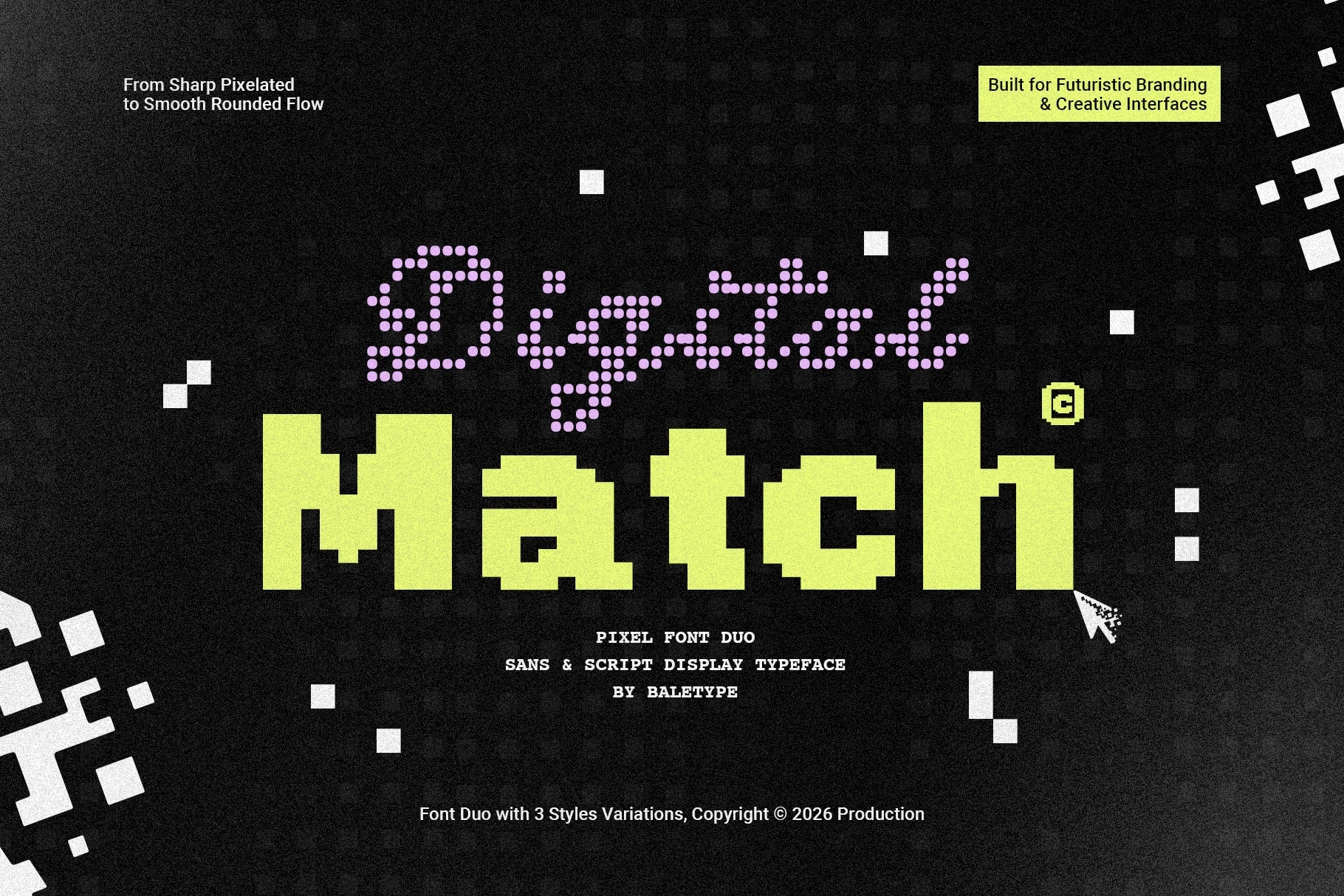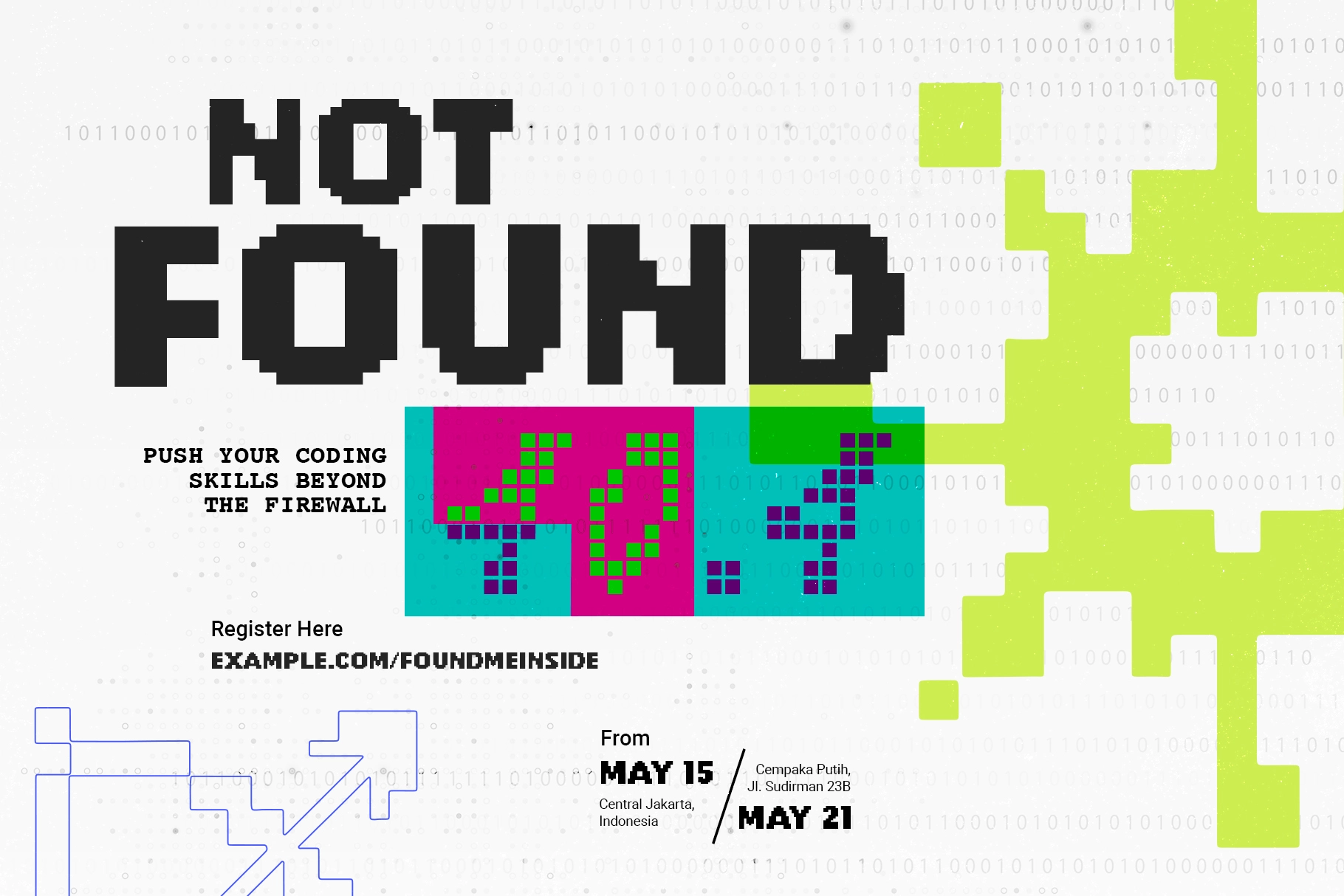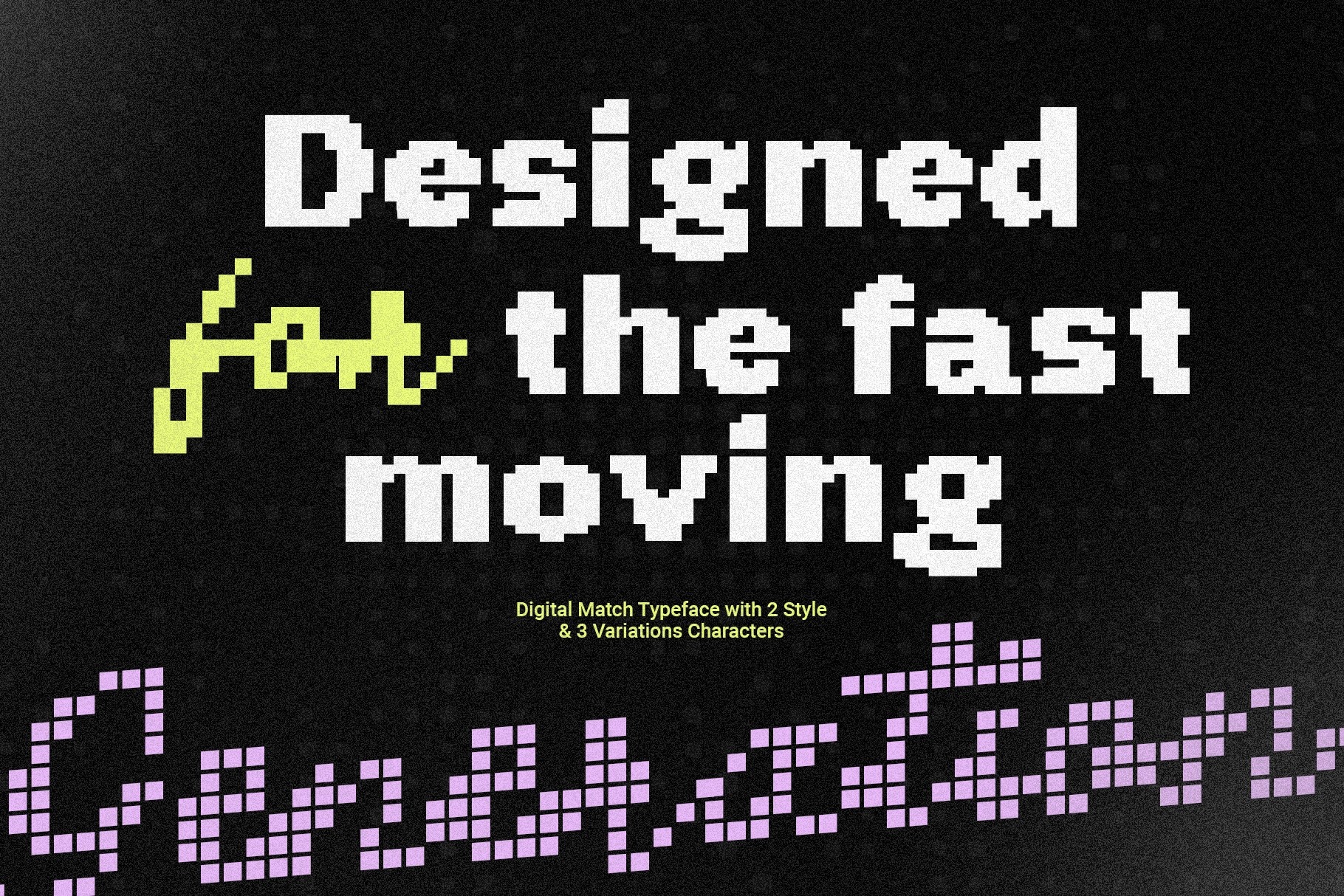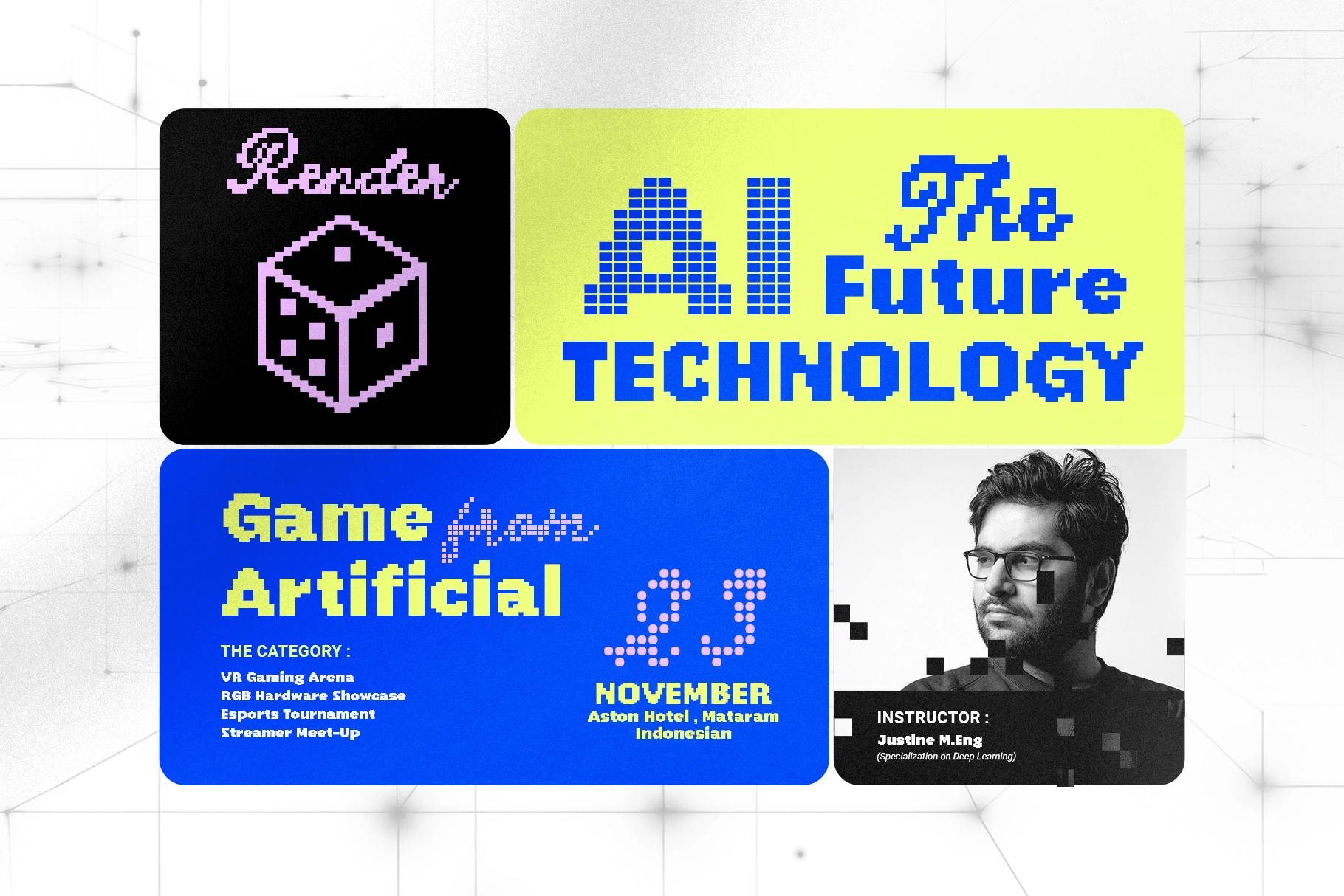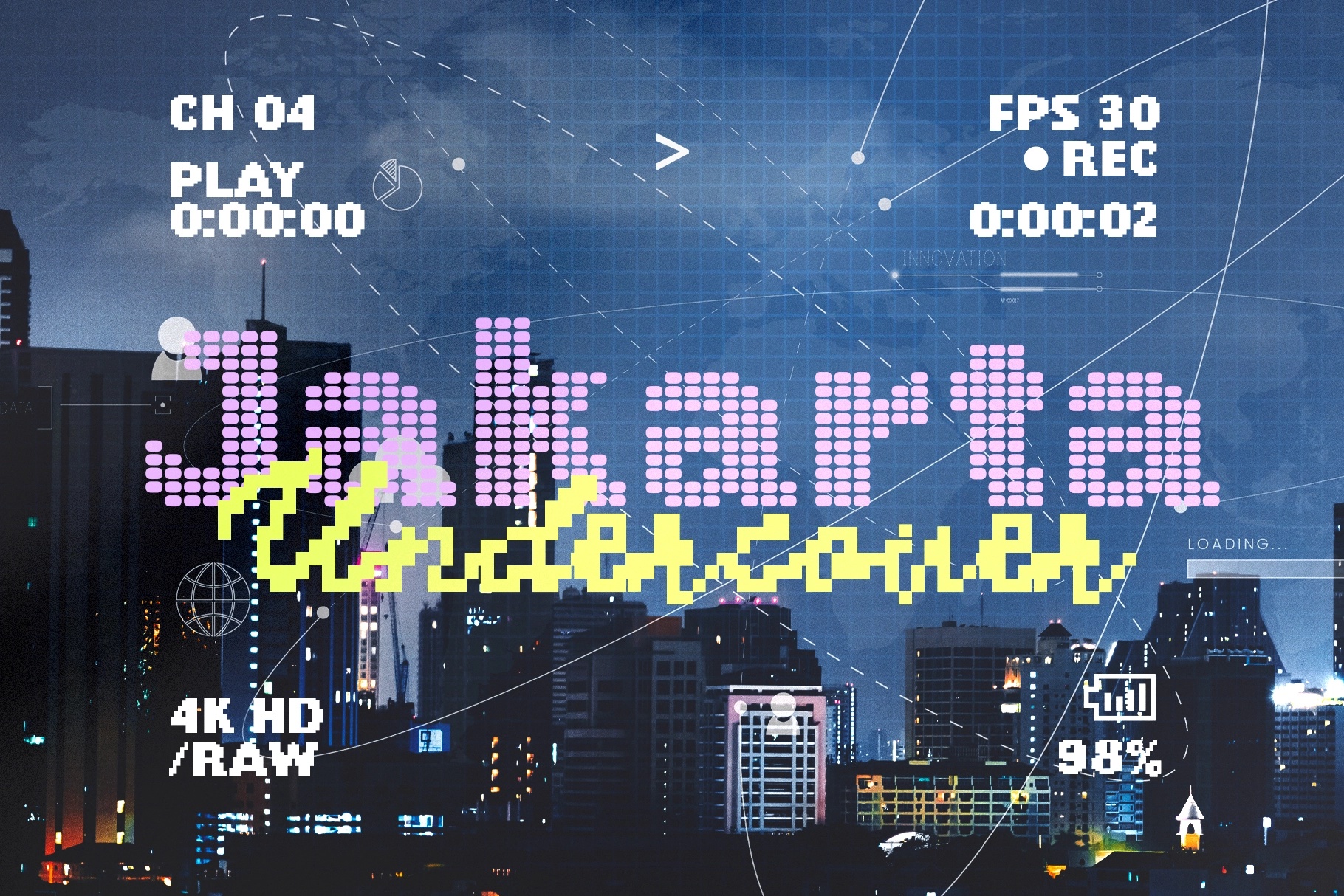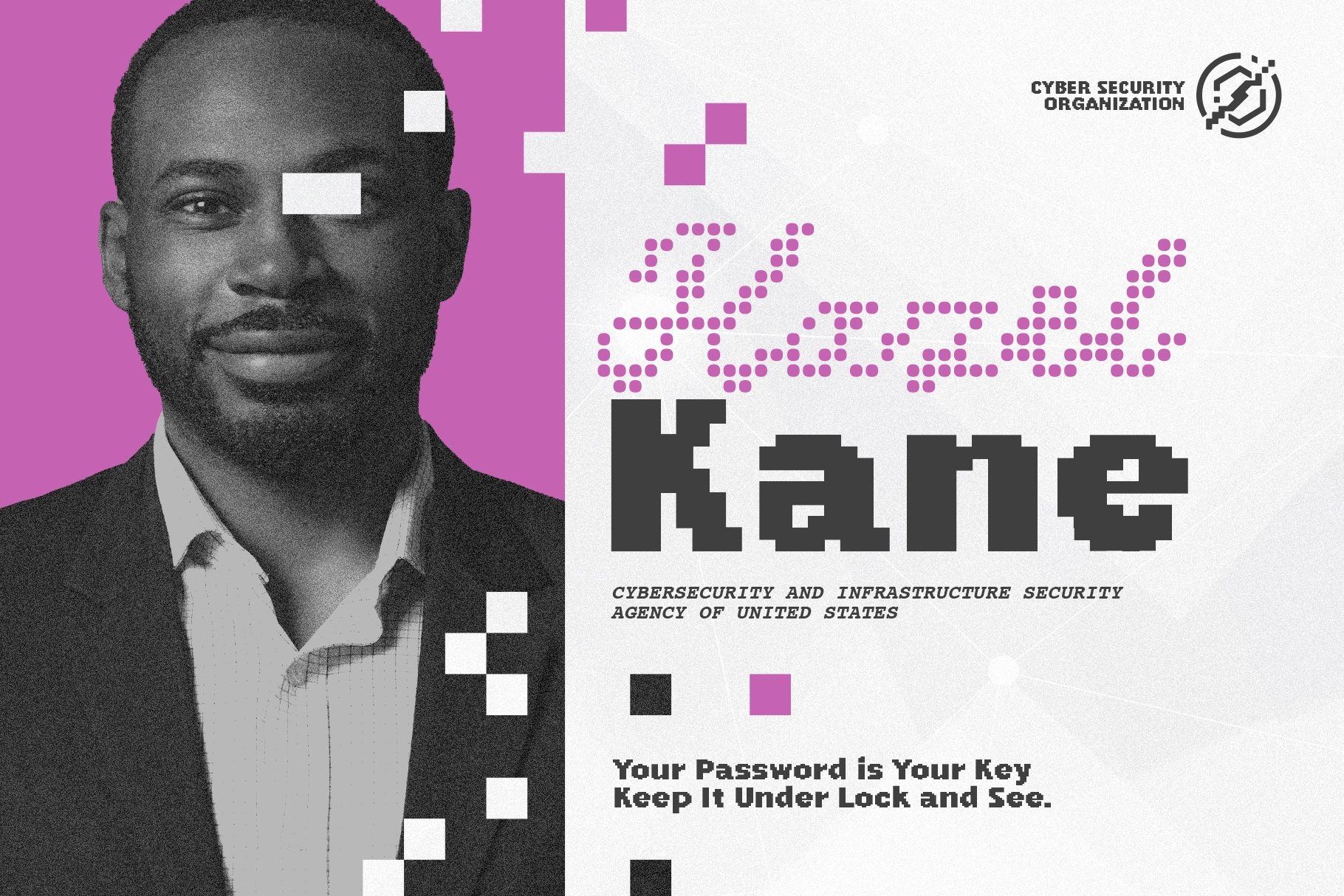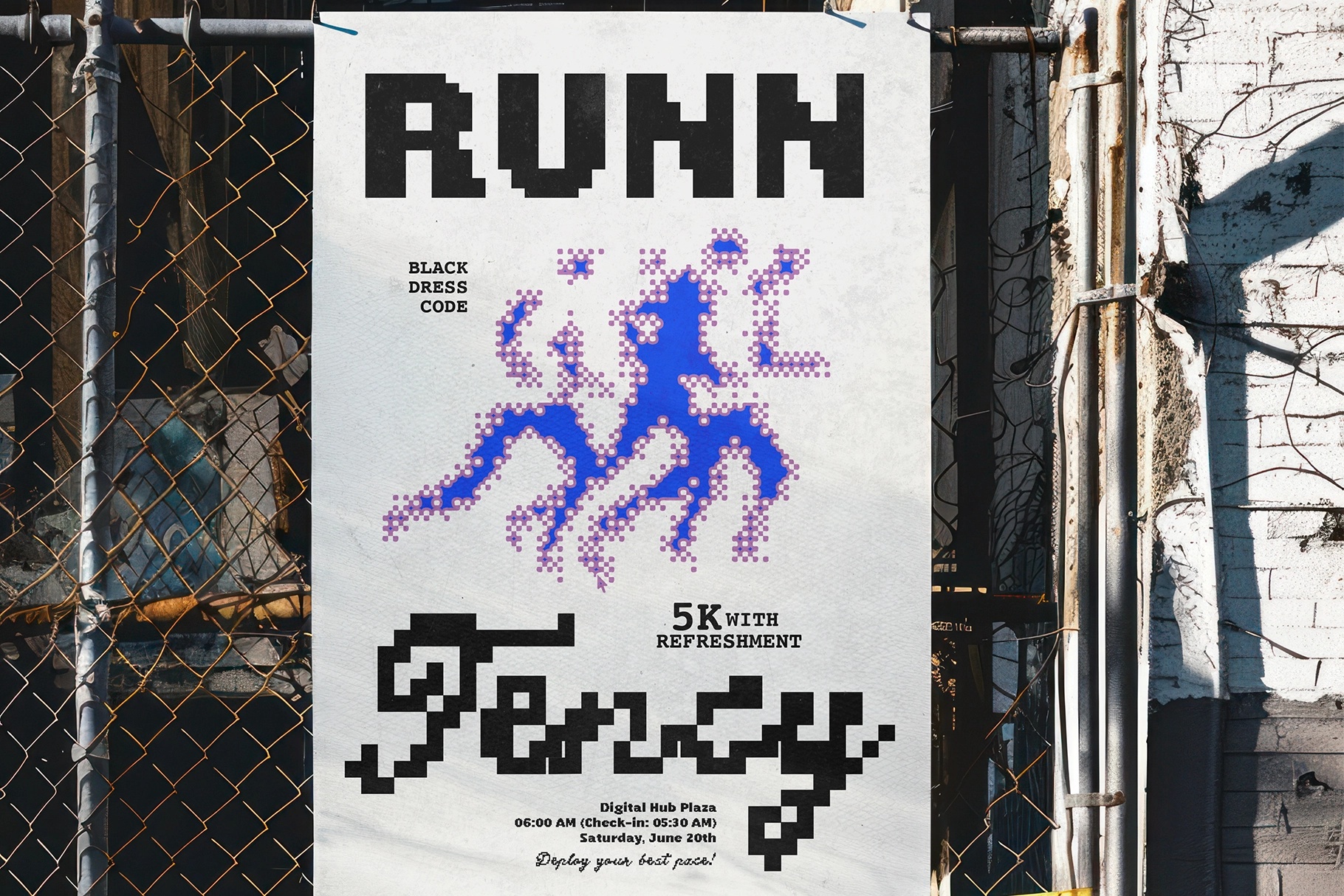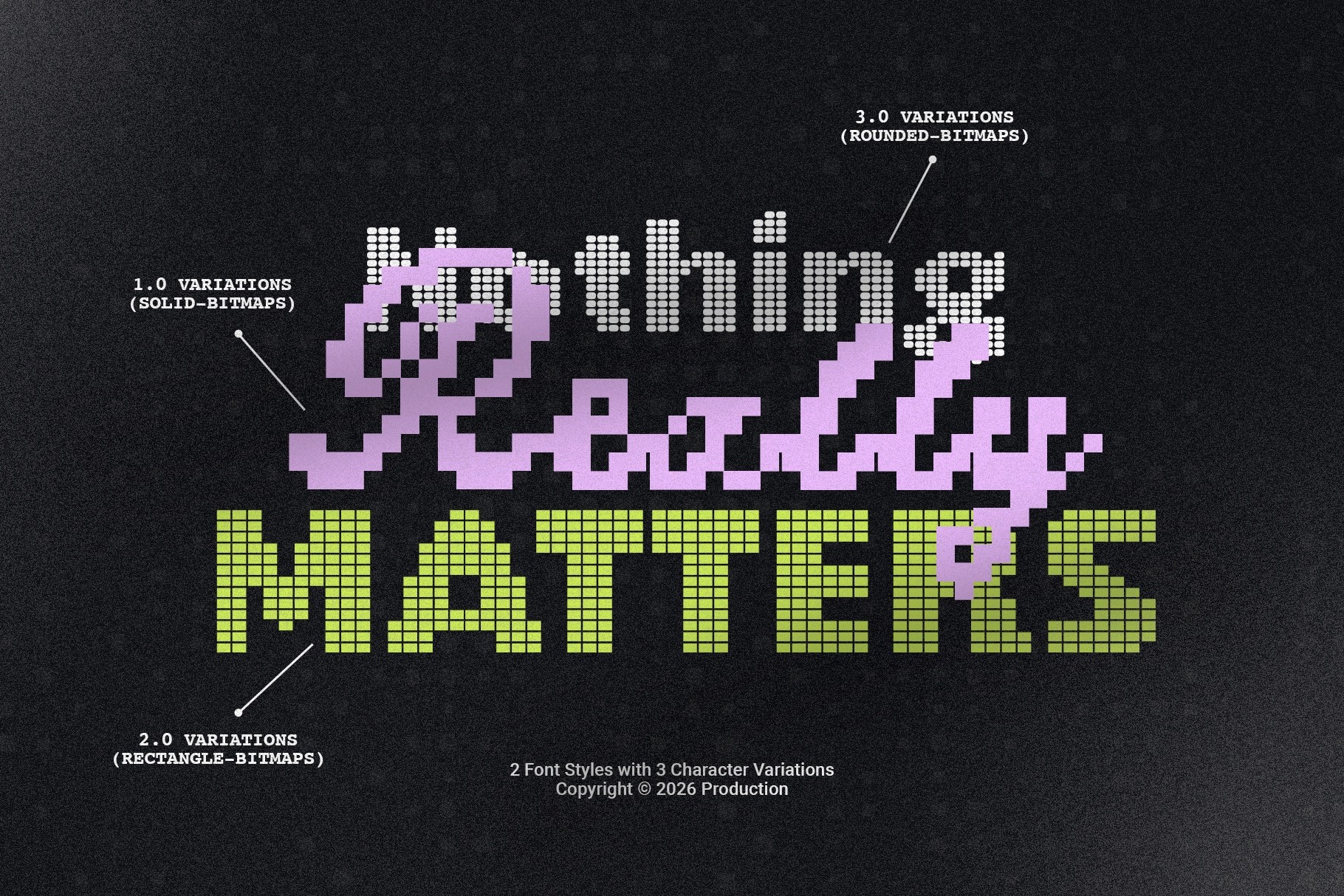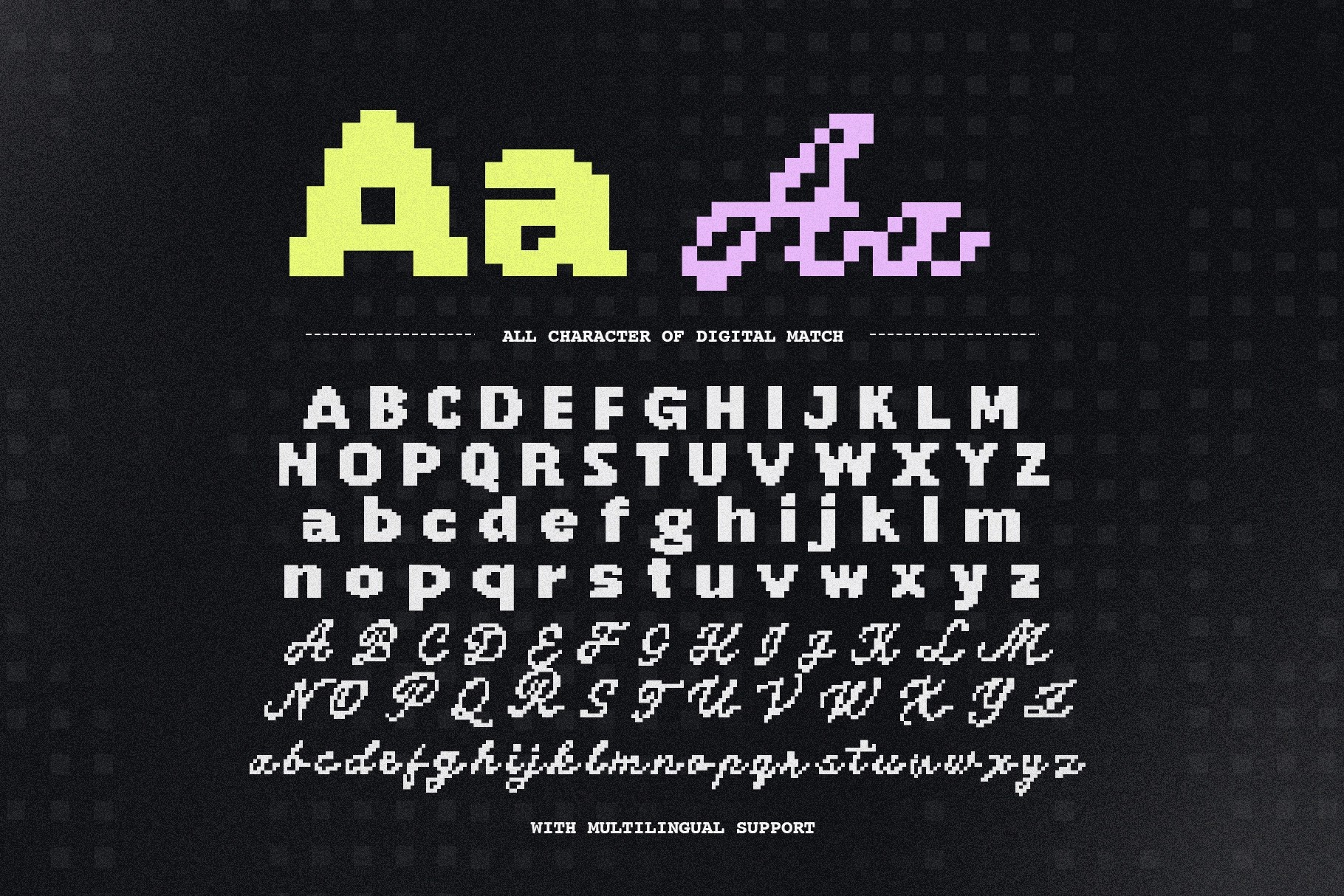
Digital Match - Pixel Font Duo
Digital Match is a pixel font duo by Baletype that runs two typographic registers at once: a blocky, sharp-edged sans built on a strict square grid, and a connected script where the same pixel construction gives cursive letterforms an unexpected 8-bit arcade quality. Each style ships in three variations — from clean solid fills to rounded dot-matrix builds — so the pair covers everything from hard-edged display headlines to the kind of soft glowing type that reads like an LED scoreboard.
The sans works at large display sizes for event titles, game UI, and tech branding. The script goes wherever a label or logotype needs a handwritten note that still fits a digital-native aesthetic. Use both for gaming visuals, esports event materials, cyberpunk poster art, app splash screens, streetwear graphics, retro-tech packaging, and coding event flyers. Multilingual support is included across both styles.
- 2 Style: Sans, Script
- 3 Variations
- Uppercase & lowercase;
- Numerals, punctuation & symbols;